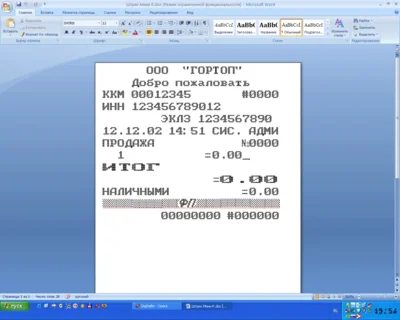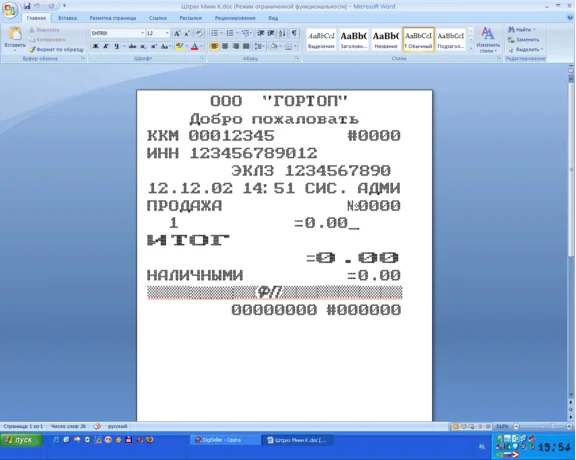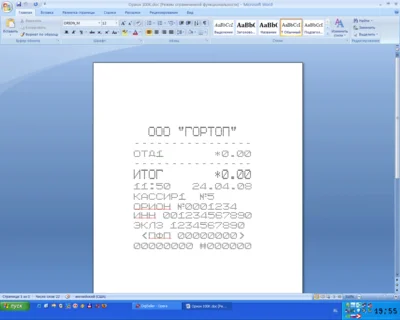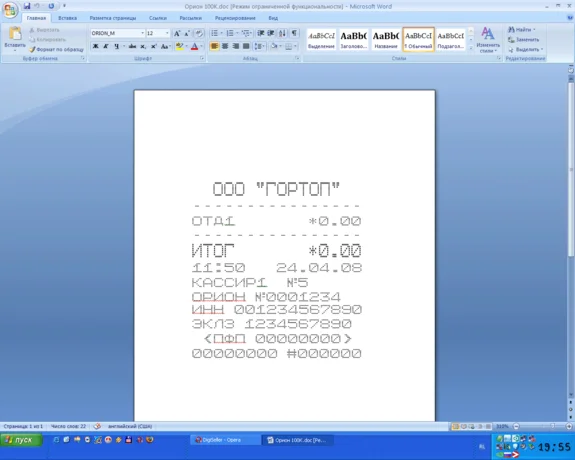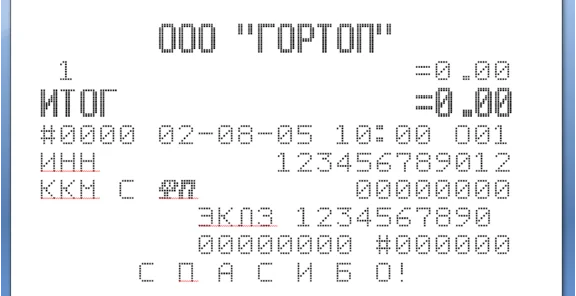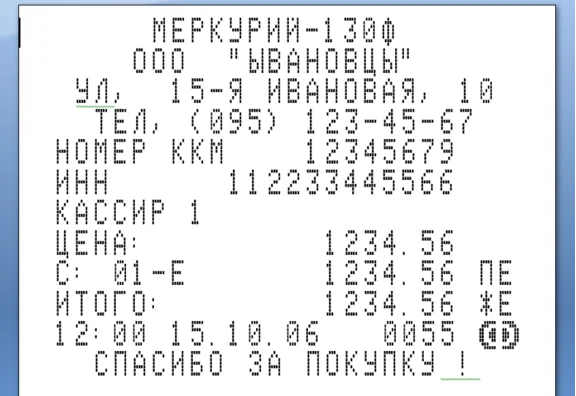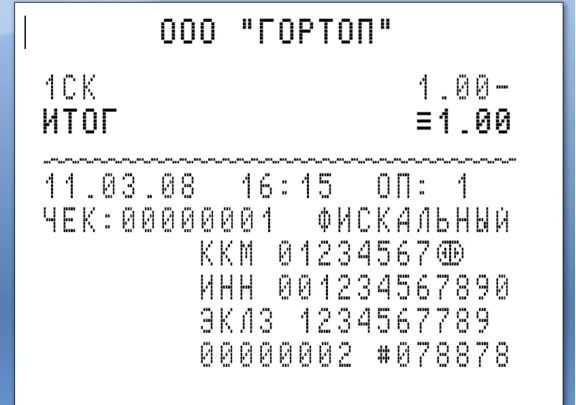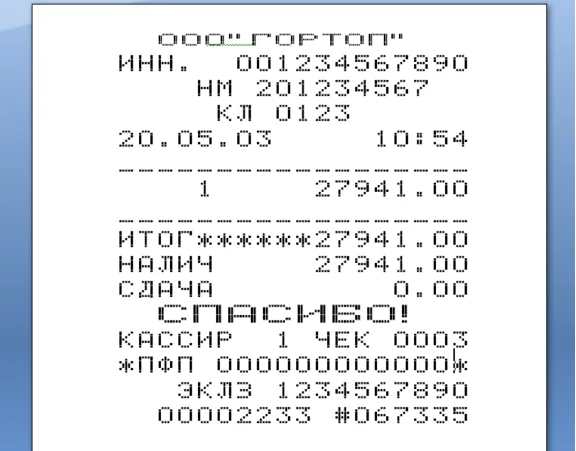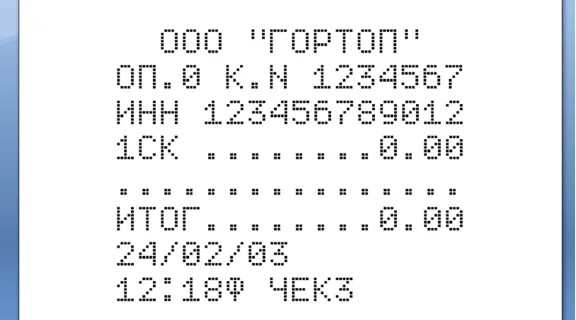
Font CMC. Examples of use.
Fonts KKM. For Windows examples format MSWord. Samples CMC AMS100, Elwes Micro, Mini Bar, Mercury 130 and 115, ERS, Orion 100 in the embodiment of F and K. Fonts adapted to work with the label printer BZB-2, as well as printed on a laser or inkjet printer, followed by passage through a fax.